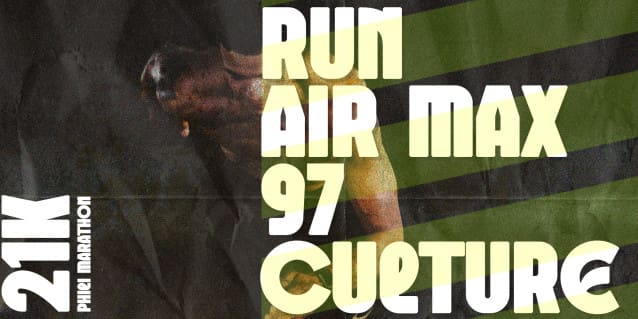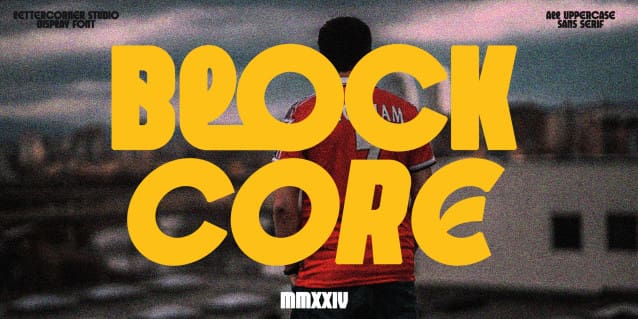
Blokecore Font
Blokecore Font an authentic sport font, Inspiring from college typography. This font is perfect for a design that makes it more attractive and playful. made with a very good level of aesthetics making this font suitable for book cover, poster, packging, merchandise, logotype and much more.